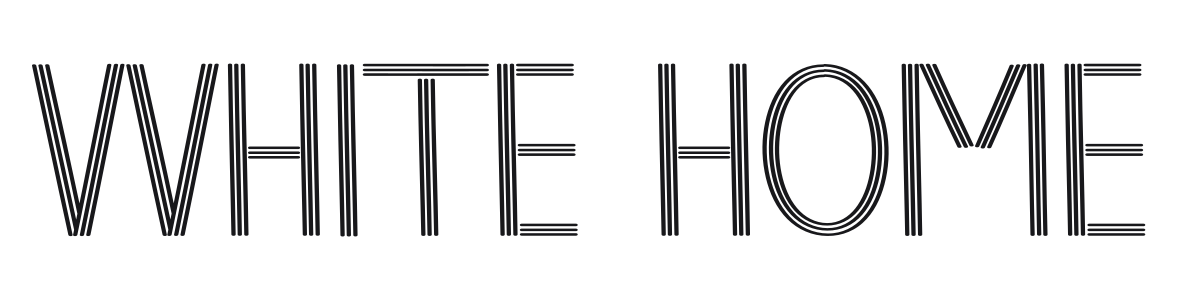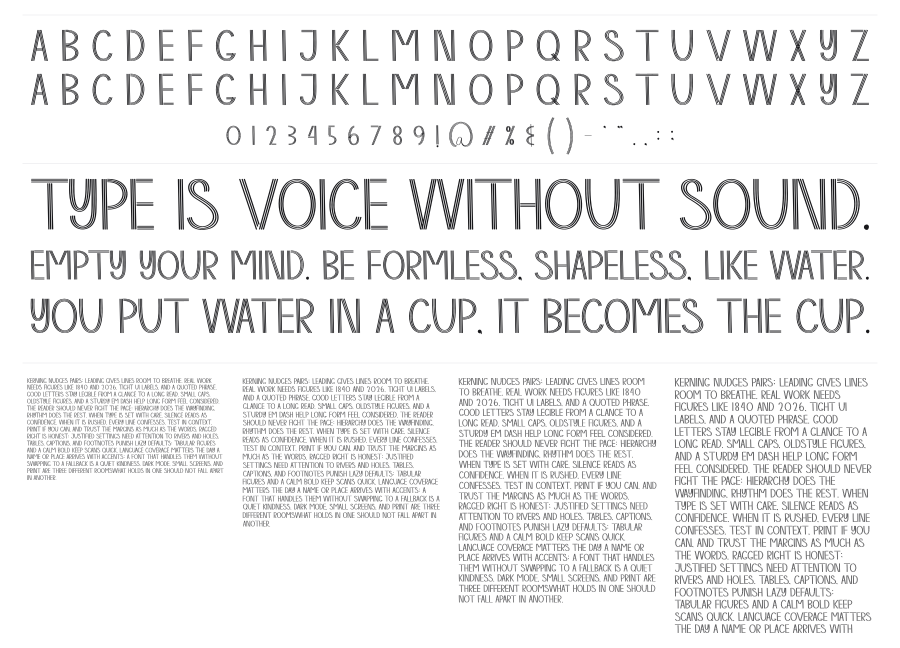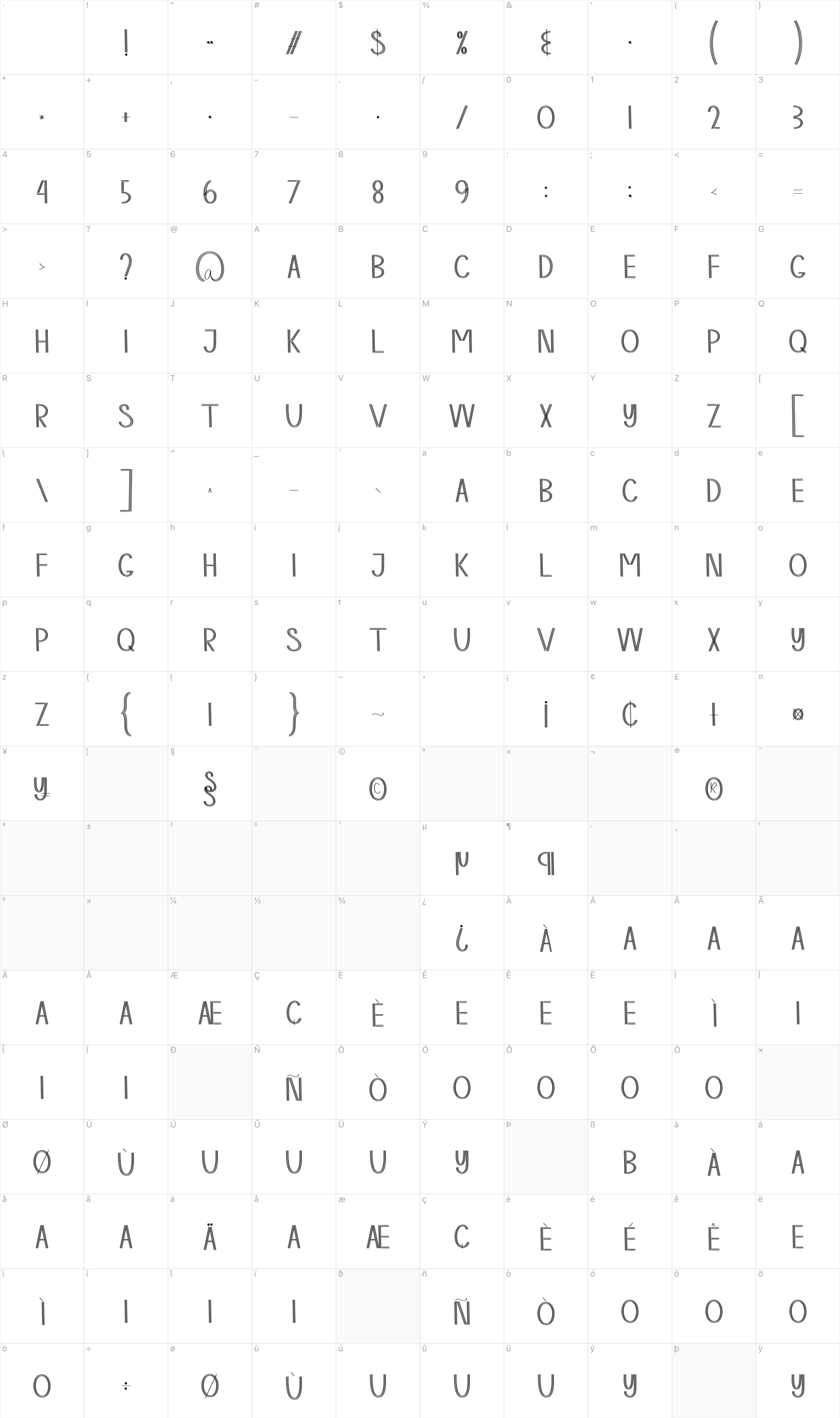
White Home
White Home is a condensed geometric display face distinguished by a triple inline stripe running through every stem and stroke. The effect is unmistakably art deco, giving headlines and titles a festive, celebratory energy without sacrificing legibility at large sizes. It works naturally in contexts that call for vintage glamour or special-occasion flair.